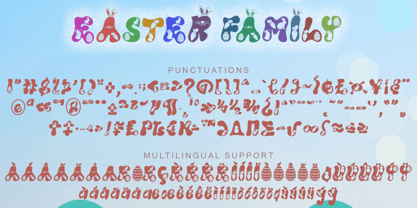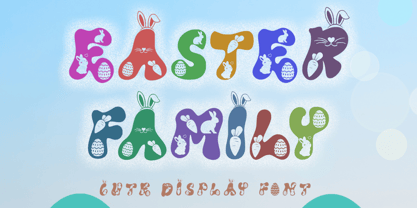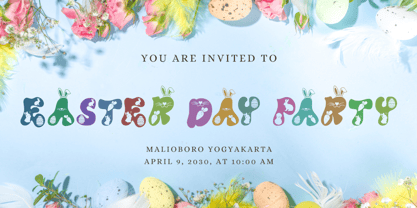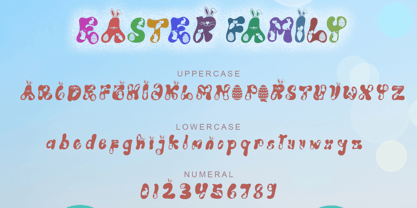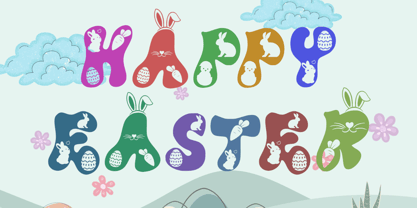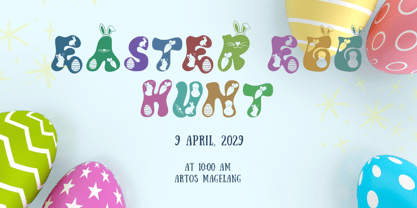
Easter Family
by Yoga Letter
The Easter Family Font Family was designed by Isroni Yoga Prasetya and published by Yoga Letter. Easter Family contains 1 styles. More about this family
"Easter Family" is a unique and cute display font. This font is equipped with uppercase, lowercase, numeral, punctuations and multilingual support. Very suitable for use for easter, animal, comic, cartoon, funny movie titles, logo, sticker, poster, print, branding and others.